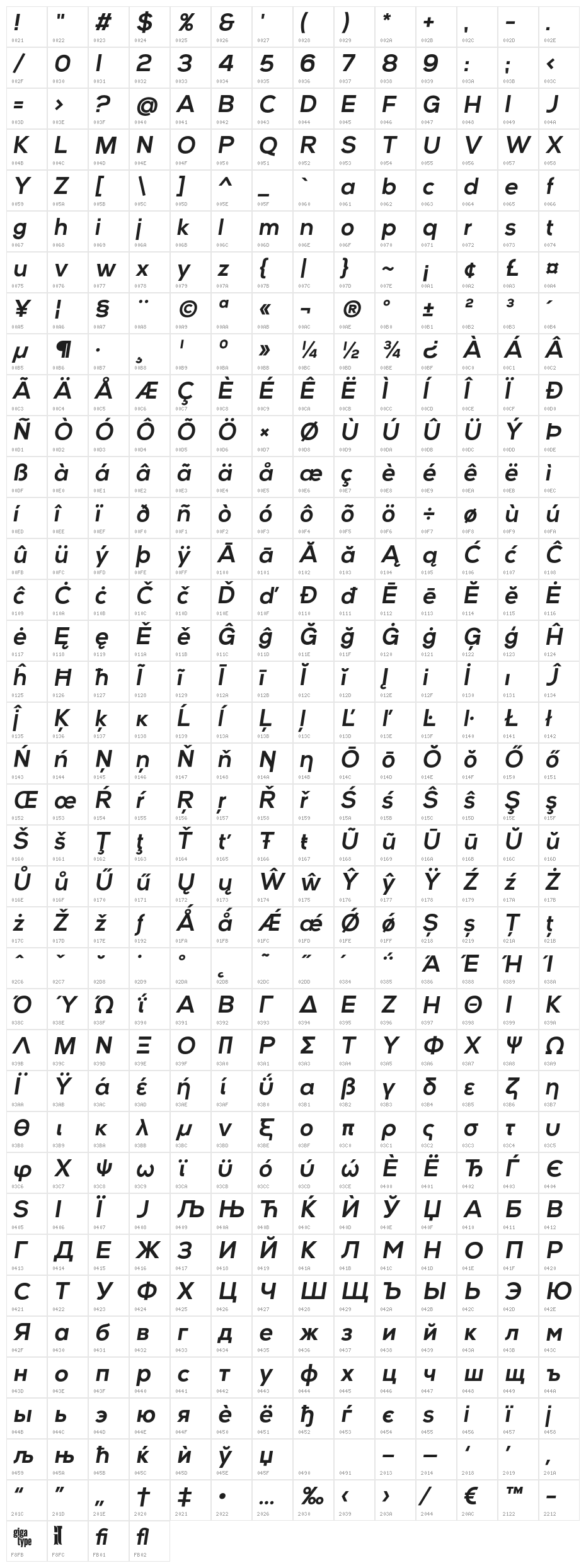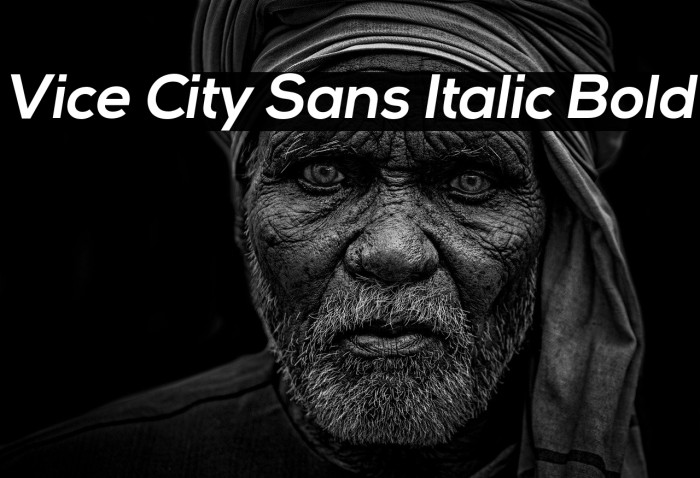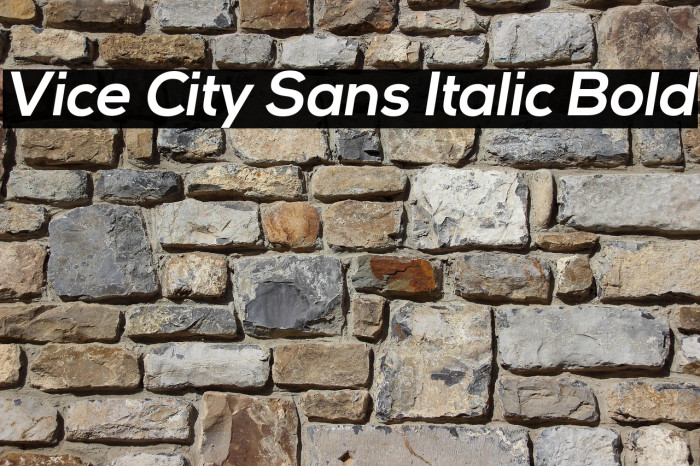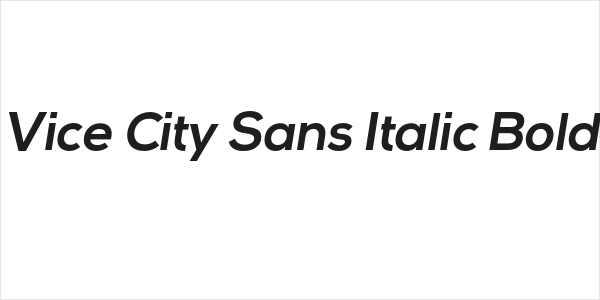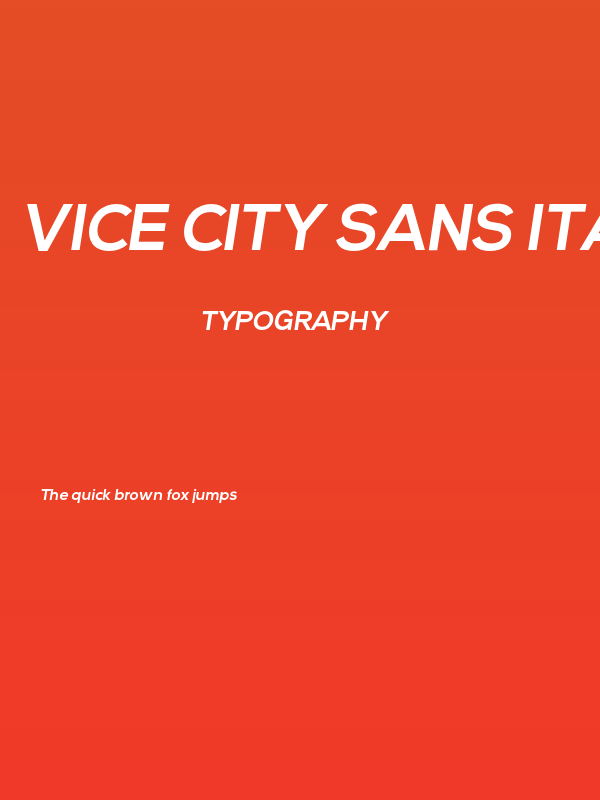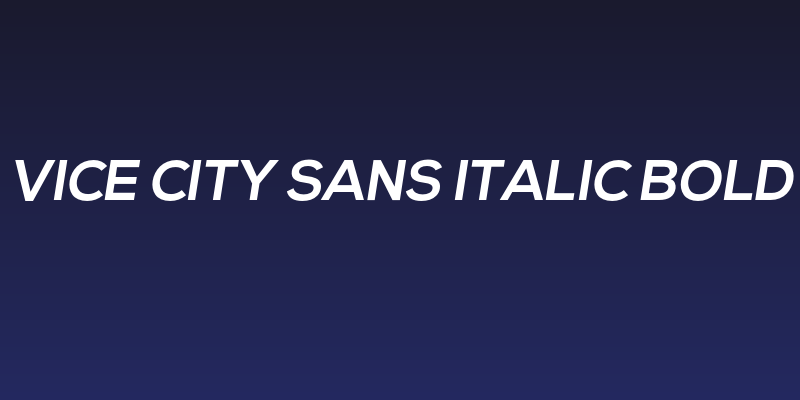
Vice City Sans Italic Bold Font
Vice City Sans Italic Bold Description
A bold, italic sans-serif font with a modern and sleek appearance, featuring clean lines and a slightly condensed width.
| Proposed Projects | Branding, advertising, digital media. |